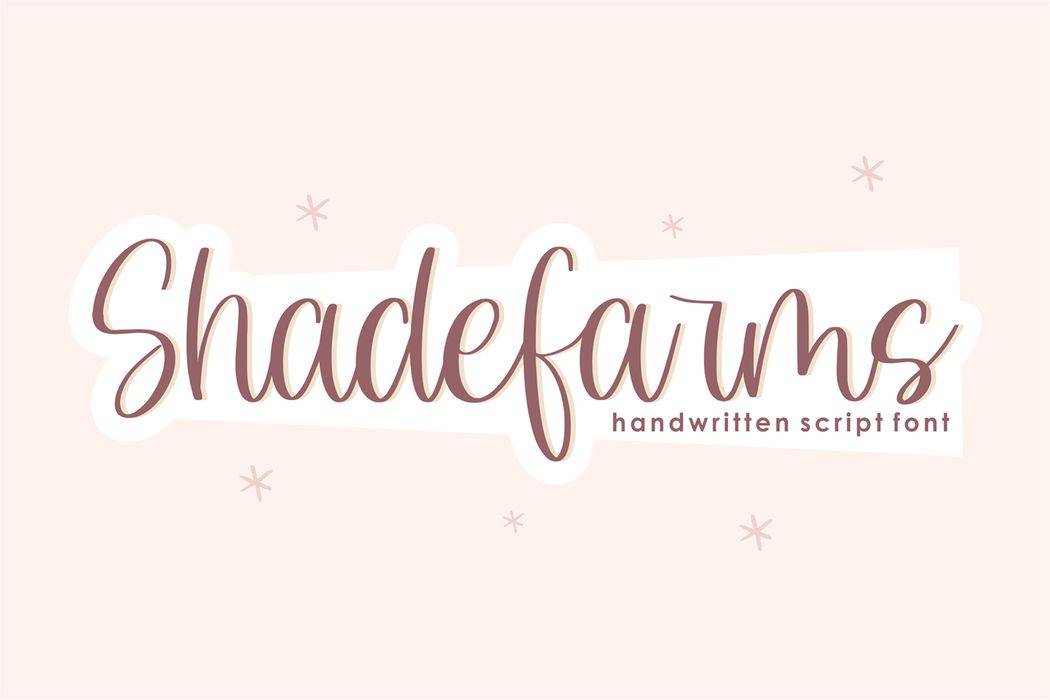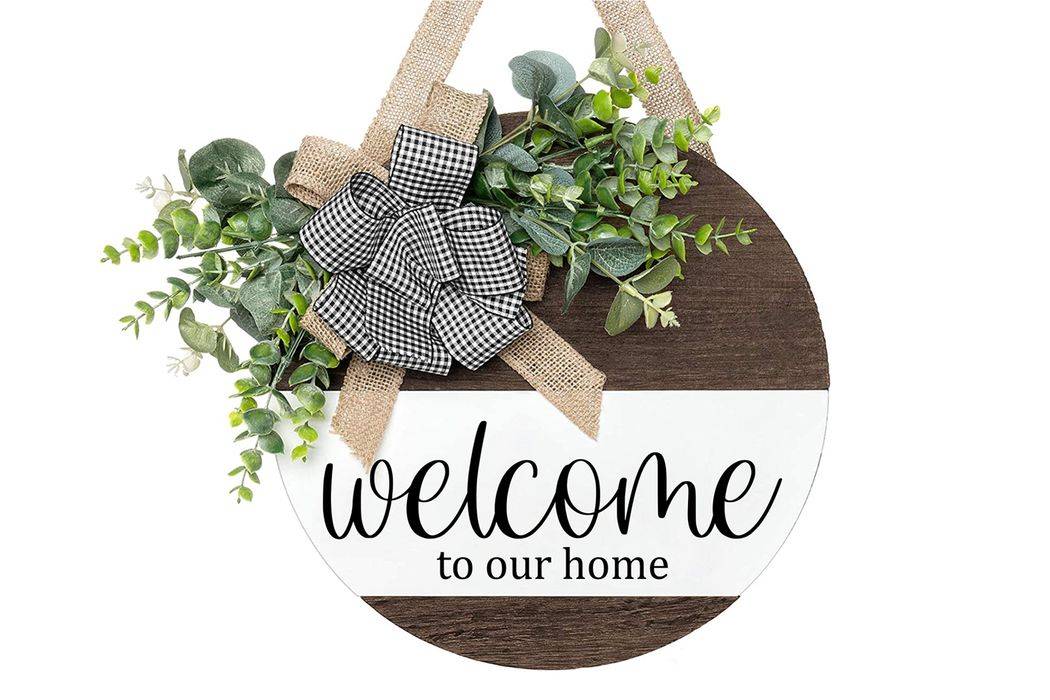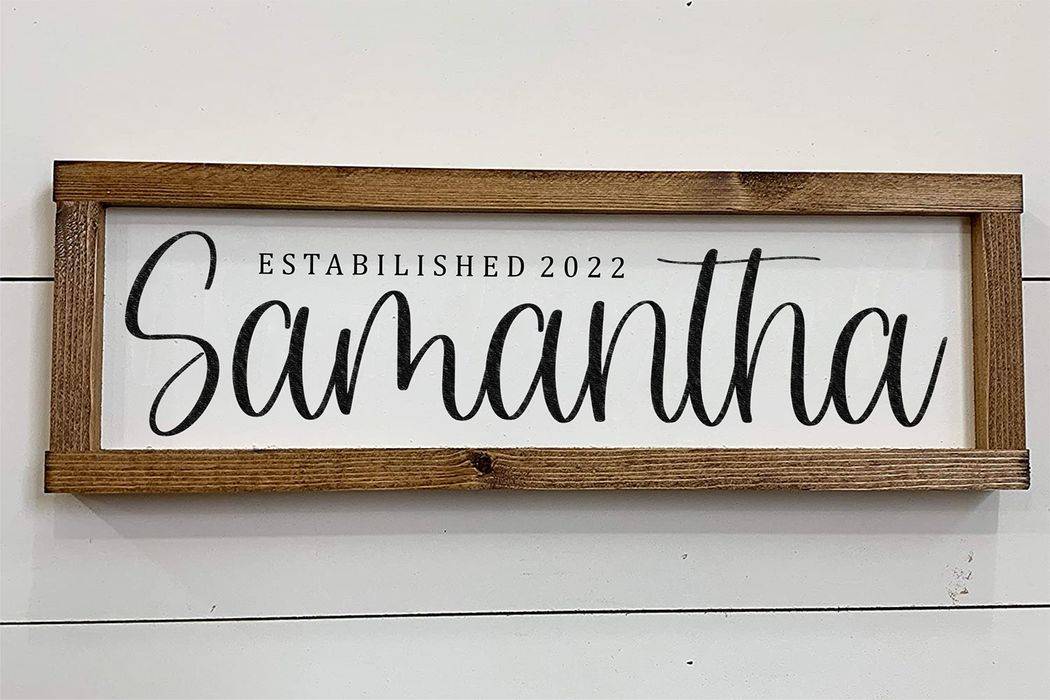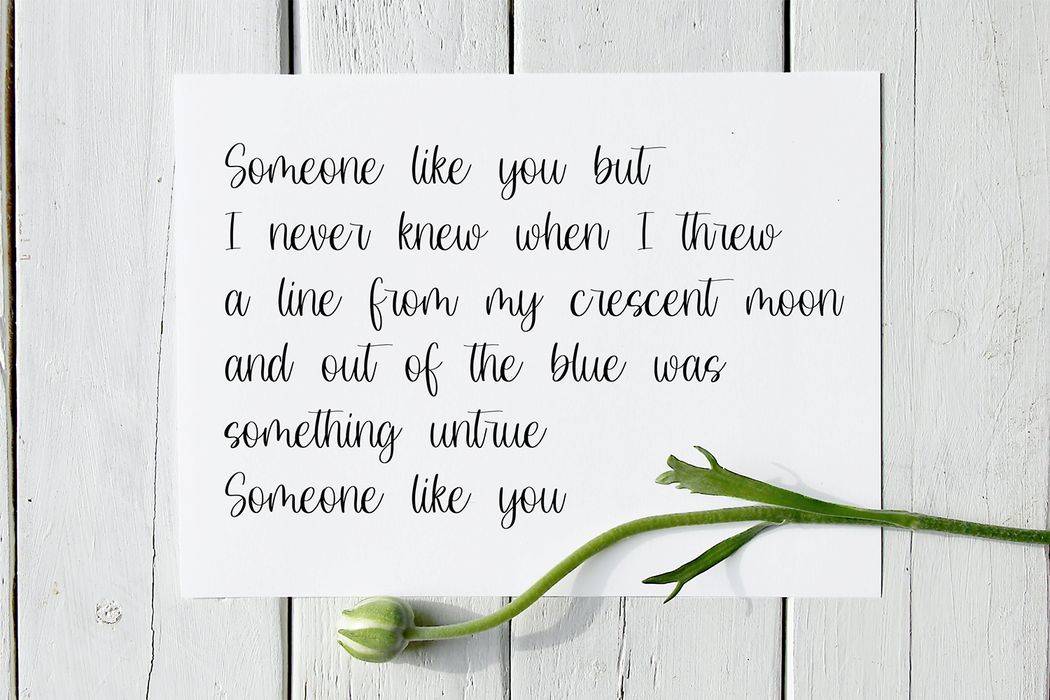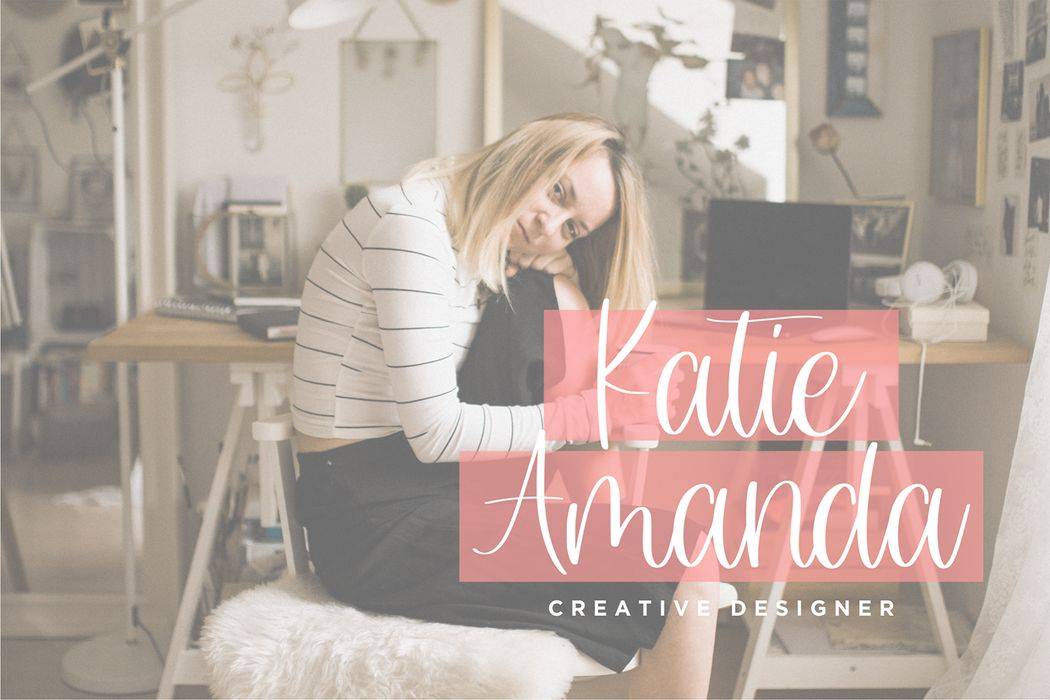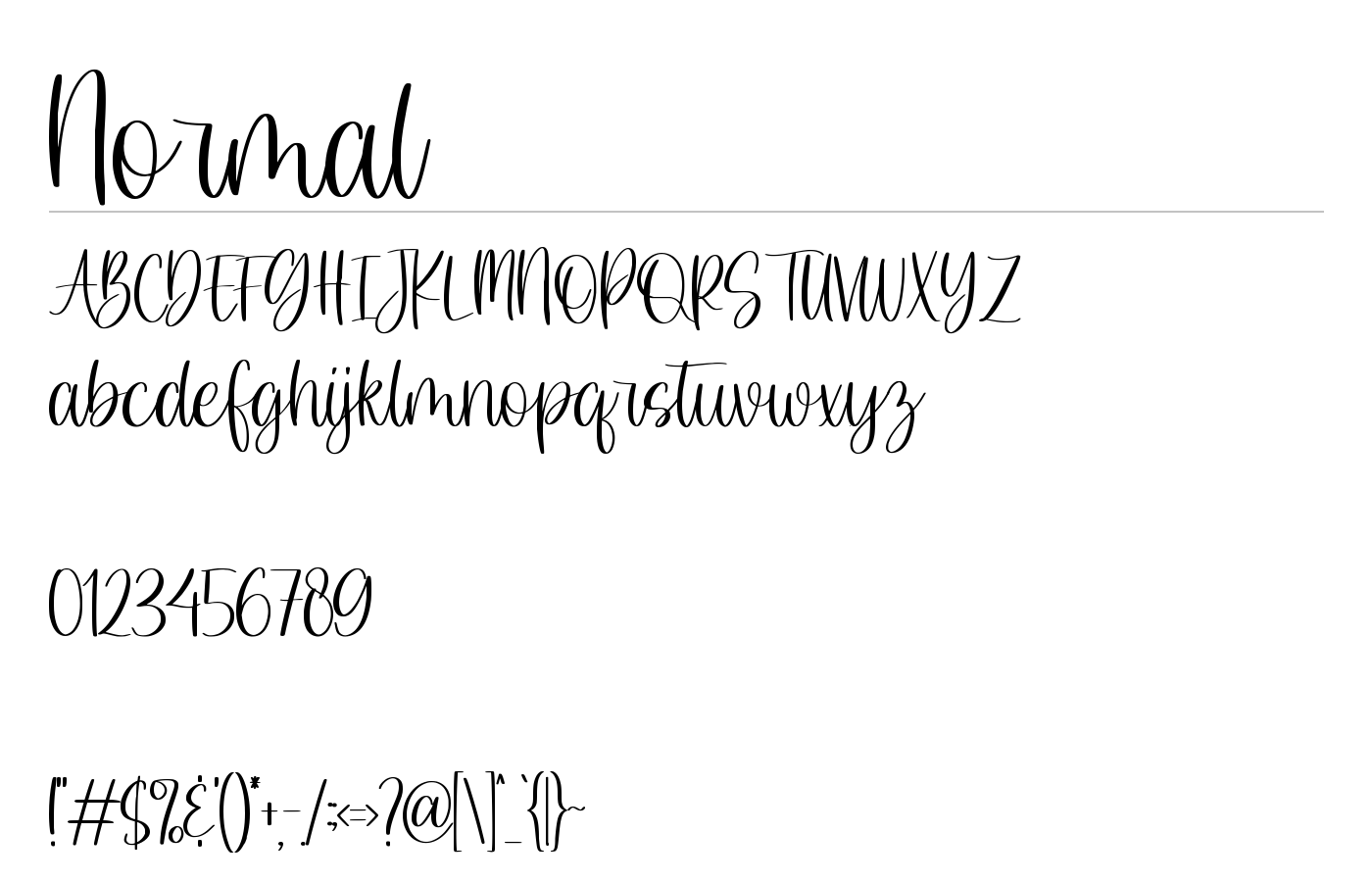
Shadefarms is a delicate, handwritten script font with a light weight and tall, narrow letterforms that convey elegance and warmth. Its smooth, flowing strokes and slightly playful curves make it ideal for creative projects seeking a personal, artistic touch, such as invitations, branding, and social media graphics. This font shines in designs where a stylish, approachable, and modern hand-lettered feel is desired.
| Font family | Shadefarms Font |
| Designer | Qwertype Foundry |